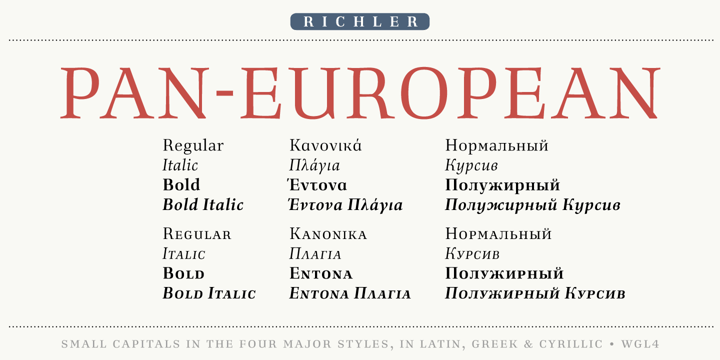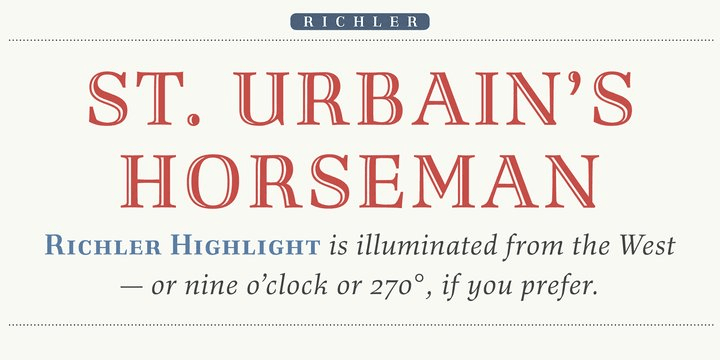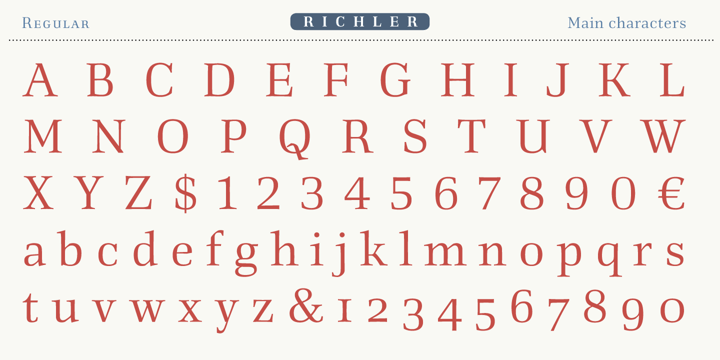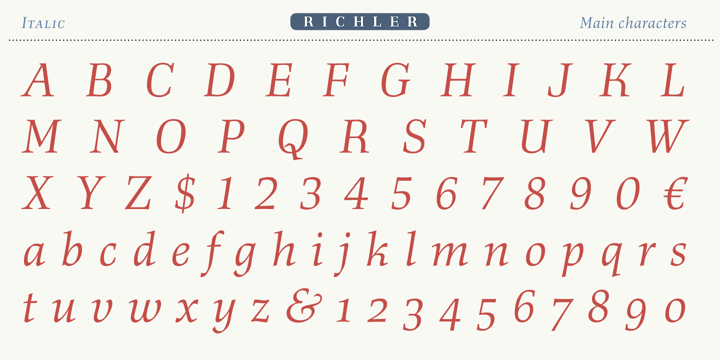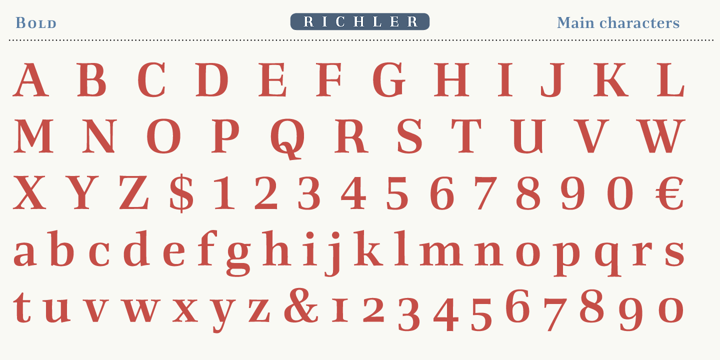
Richler
Font Family by Shinntype
Richler is a serif display family with a decorative edge, combining classic letterforms with a special-effect look that gives headlines more personality. It feels stylish and a little theatrical, making it a strong choice when you want serif typography that reads as expressive rather than reserved.
This family includes 5 styles: Regular, Italic, Highlight, Bold Italic, and Bold. That mix gives you room to build contrast across titles, logos, packaging, posters, editorial layouts, and other display-driven branding pieces where a more distinctive serif can carry the visual mood.
Designed by Shinntype, Richler offers a flexible set of standout serif styles for work that needs polish, character, and a more decorative finish.